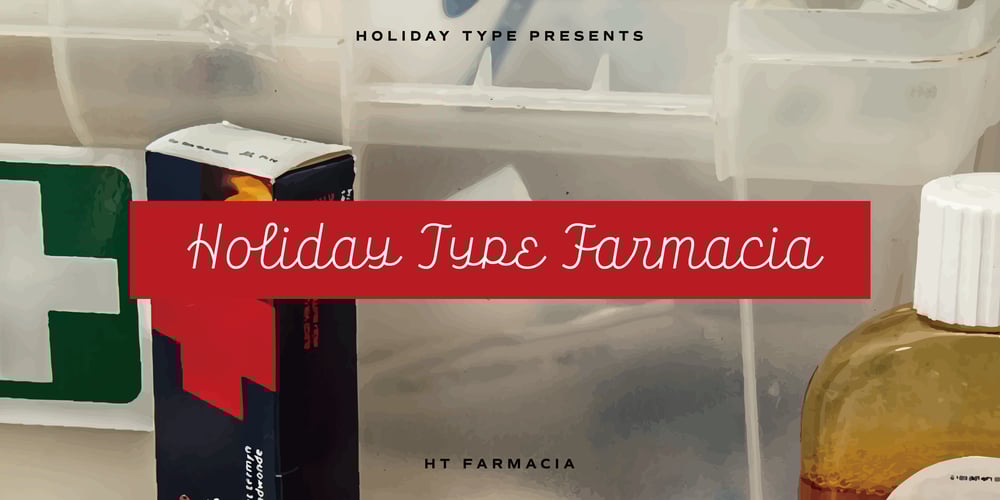
HT Farmacia
HT Farmacia Font Family was designed by Ryoichi Tsunekawa and published by Dharma Type. HT Farmacia contains 1 styles and family package options. This is a monoline script without descenders. Its tail gives us cute and lovely impression, but it is also methodical and punctual. Holiday Type Project offers retro hand drawing scripts. Inspired by retro script on shopfront lettering, wall paint advertisements in Italy around 1950s. Check out the script fonts from Holiday Type!